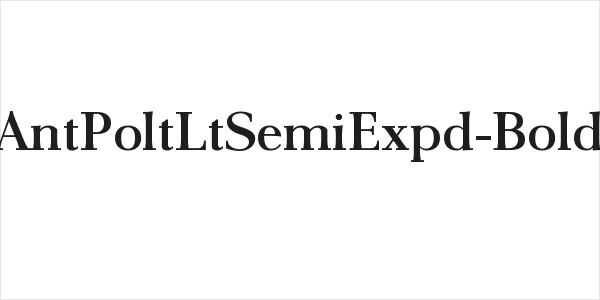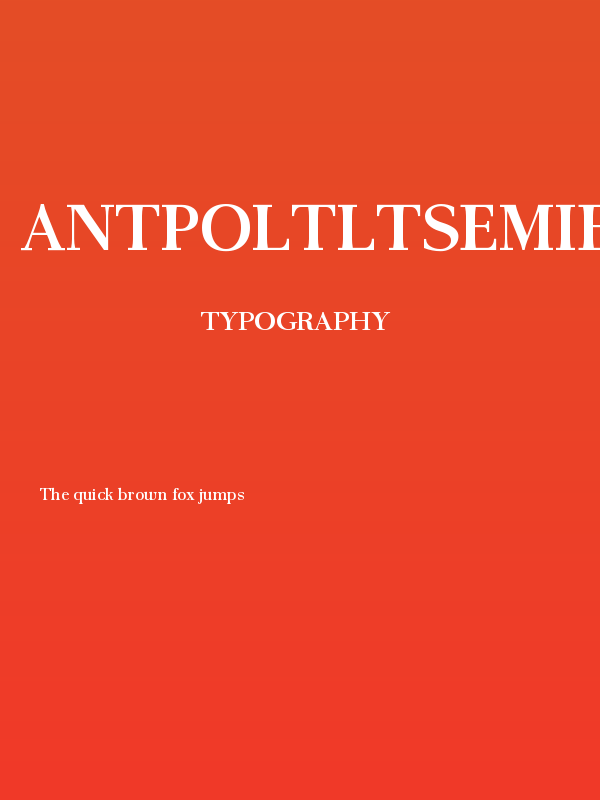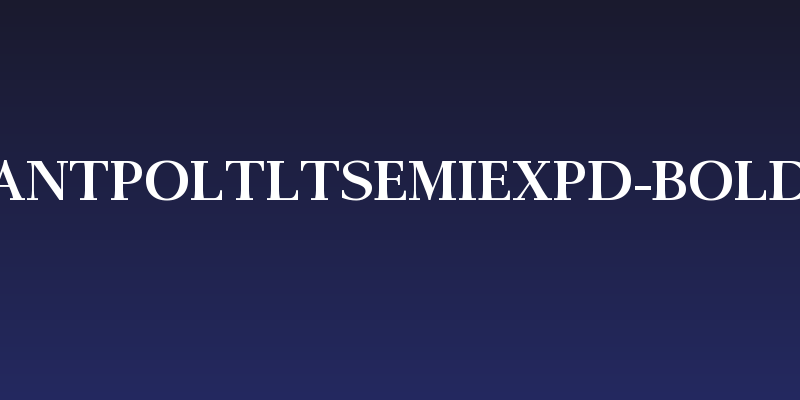
AntPoltLtSemiExpd-Bold Font
AntPoltLtSemiExpd-Bold Description
This font exhibits a bold and authoritative presence with its semi-expanded letterforms. The serifs are pronounced, adding a touch of elegance and tradition to the overall design. The uppercase letters are tall and commanding, while the lowercase letters maintain a consistent and harmonious flow. The numerals are clear and distinct, ensuring readability. Special characters are well-integrated, providing versatility for various applications. The font's structure is robust, making it suitable for both digital and print media.
| Use Case | Headlines, Logos, Editorial Design |
| Proposed Projects | Ideal for editorial design, book covers, formal invitations, and branding that requires a touch of elegance and strength. |